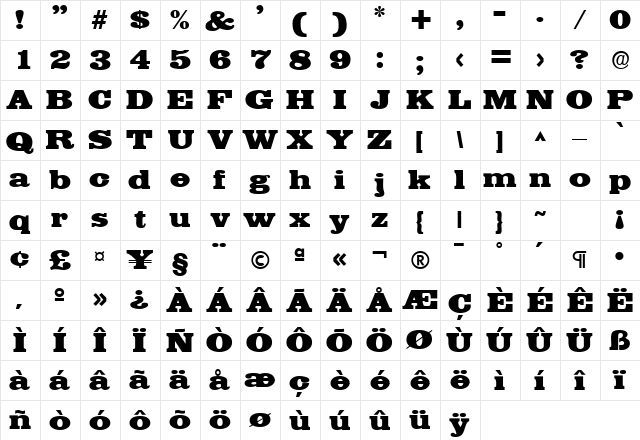
MsSprattSSK Regular
Design Context for MsSprattSSK Typeface
MsSprattSSK offers clean, dependable letterforms without strong stylistic allegiance, making it a practical choice for designers who need flexibility.
Pro Tip: Use MsSprattSSK in both headline and body roles to test its range before committing to a single application.